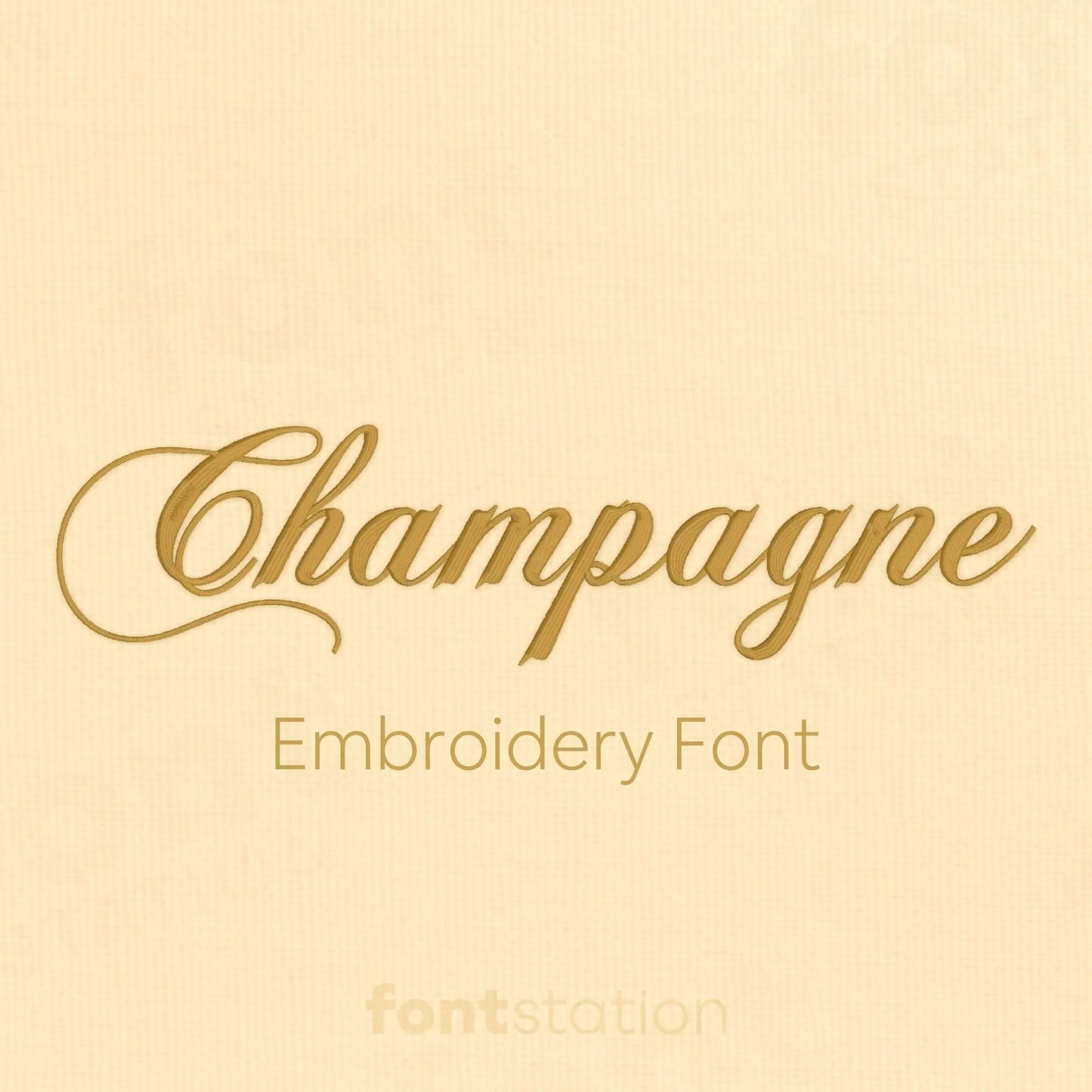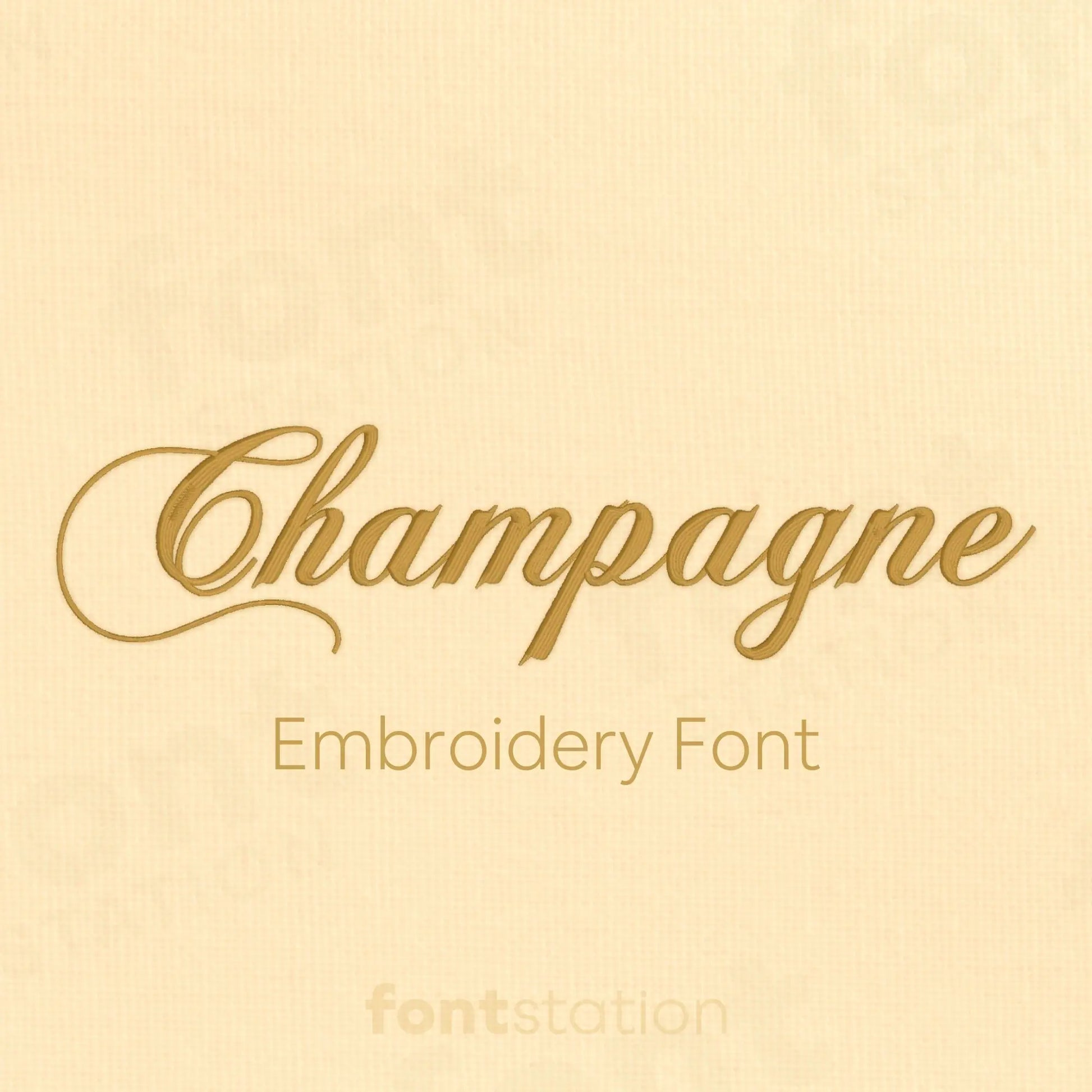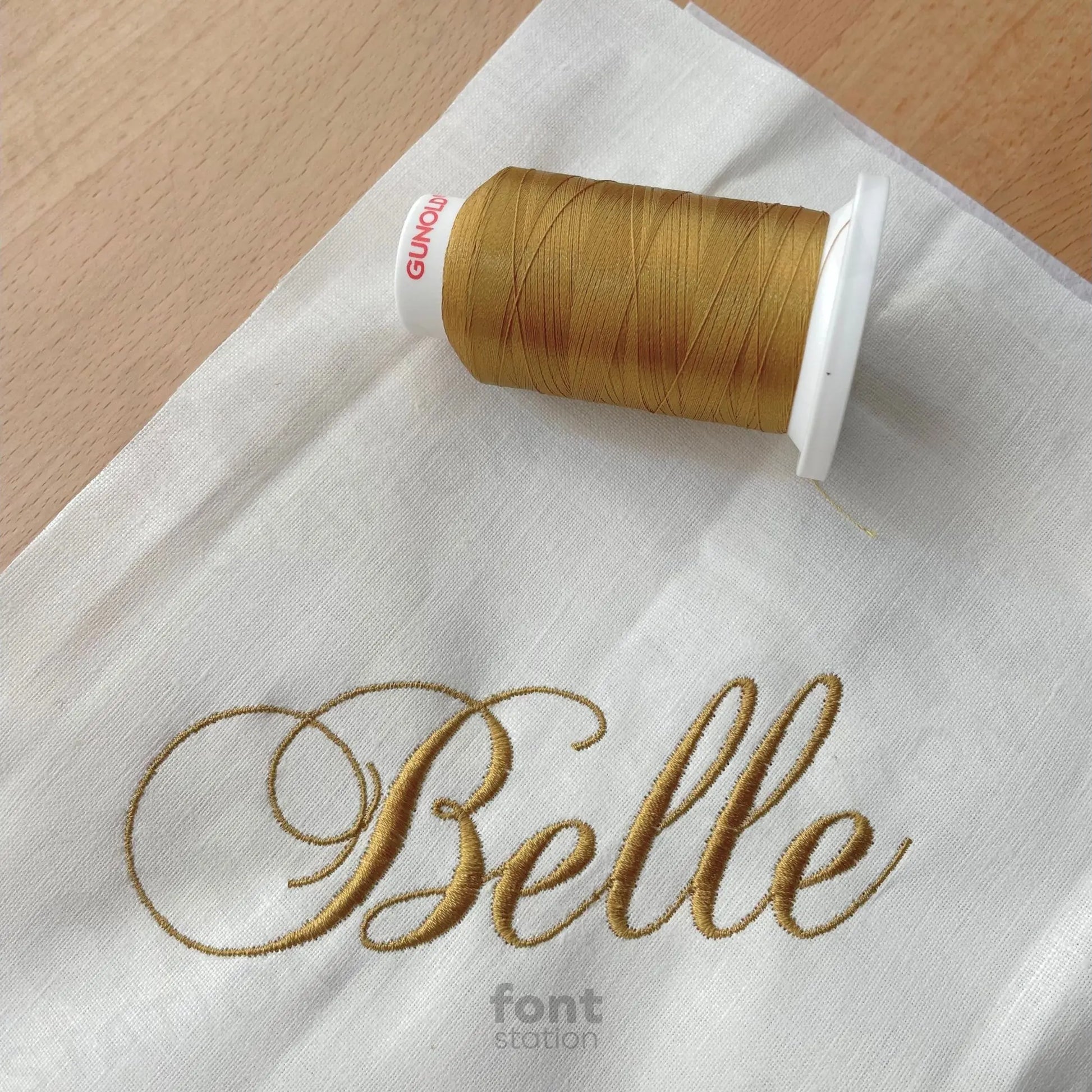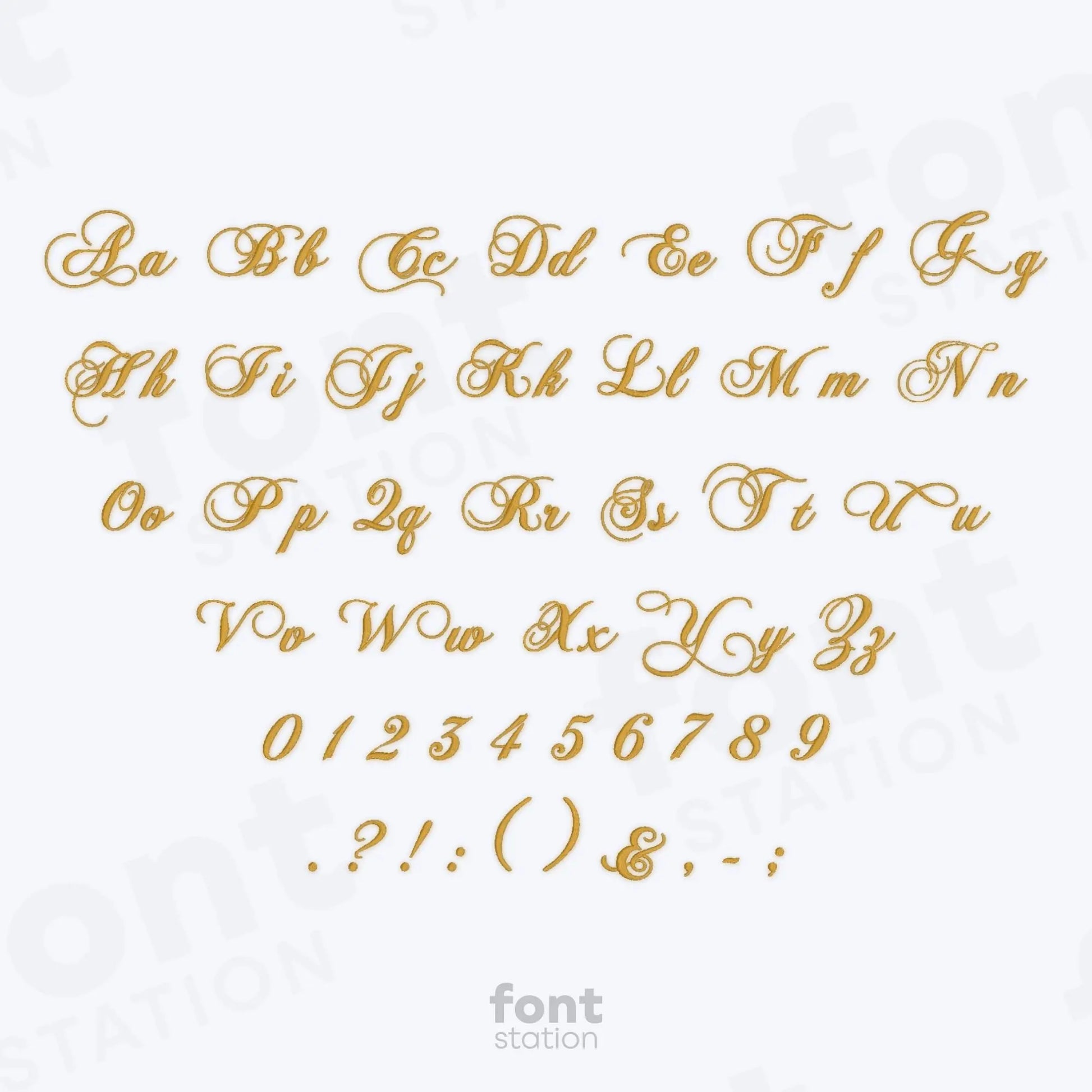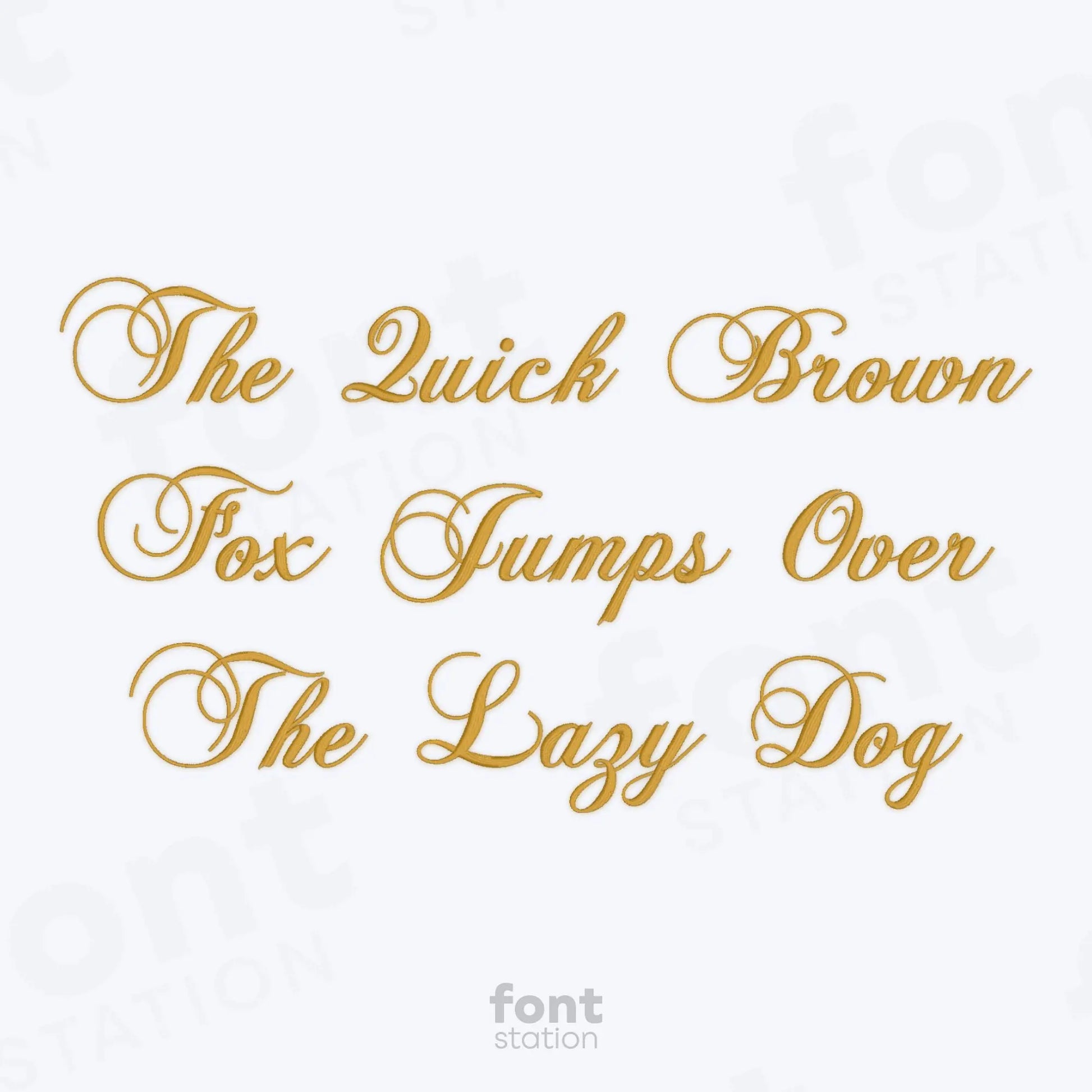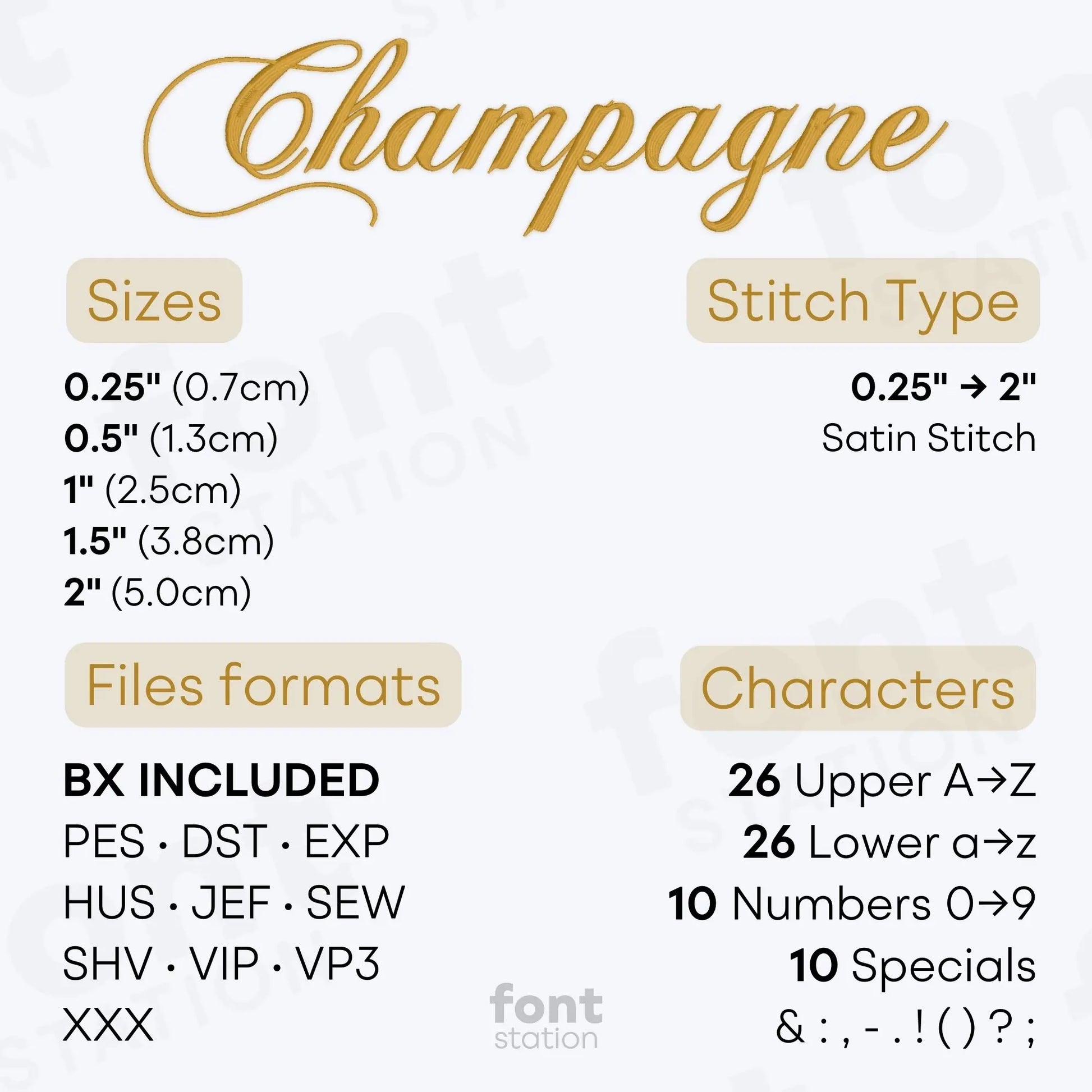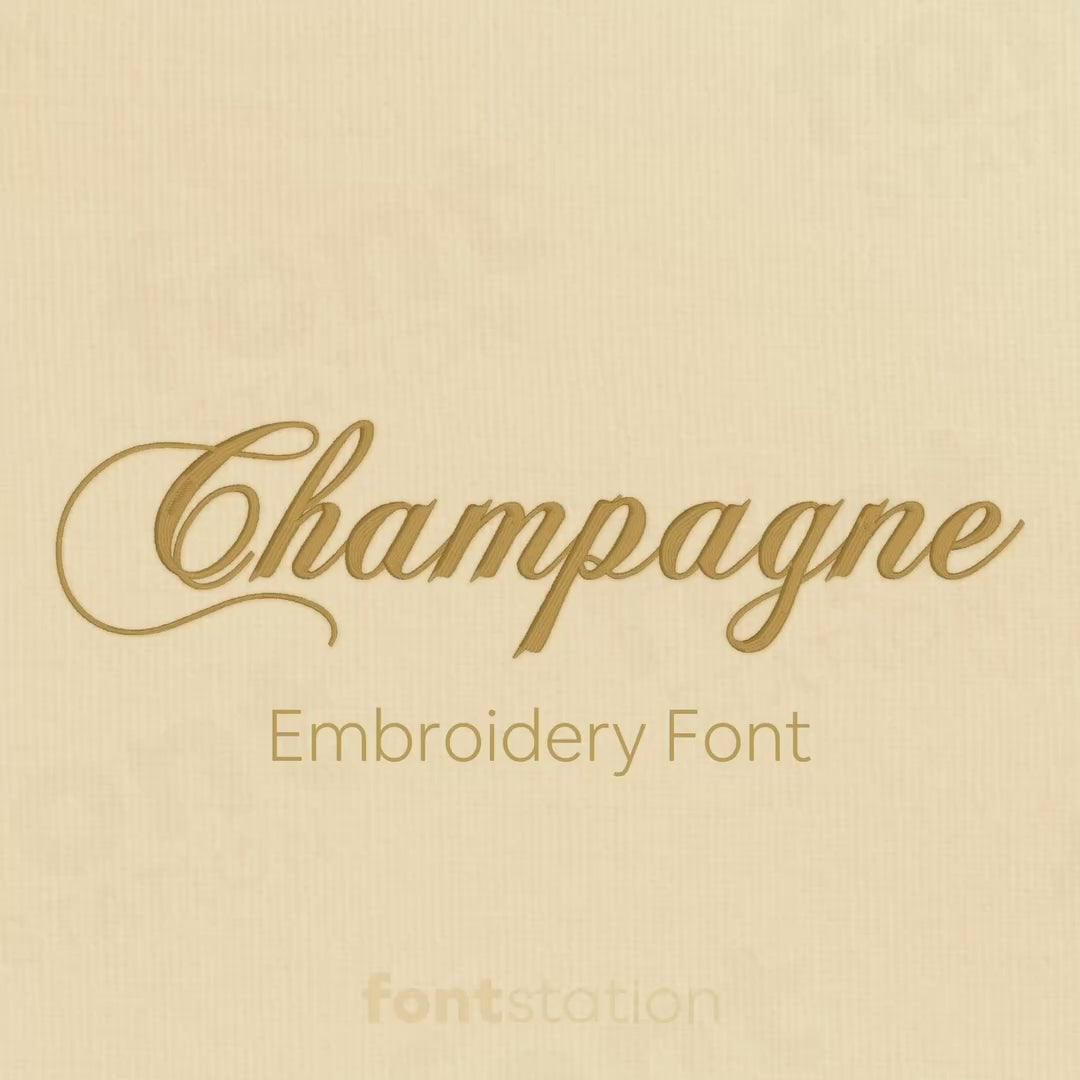
Champagne Embroidery Font
Introducing our Champagne embroidery font - an elegant calligraphy alphabet with cursive letters, perfect for decorative designs. These letters stitch beautifully on any embroidery machine, making it a refined choice for your next embroidery project.
About the Champagne Embroidery Font
Satin Stitch: 0.25", 0.5", 1", 1.5", and 2"
Characters: 26 uppercase, 26 lowercase, 10 numbers, and symbols & : , - . ! ( ) ? ;
Our Champagne embroidery font adds timeless elegance to your embroidery projects.
Designed for sophistication and charm, this calligraphy-style embroidery alphabet features decorative, flowing letters with a cursive, luxury feel. Whether you're stitching monograms, wedding accents, or upscale gifts, these machine-ready embroidery letters bring a refined, elegant look to every design.